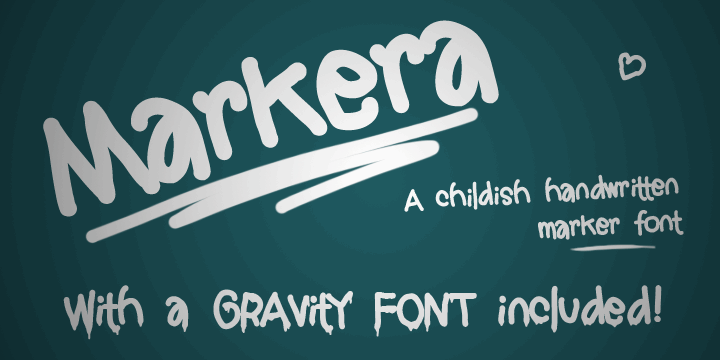
Download and enjoy this free markera font. Cool typeface to showcase your designs in a modern way. Go give some love to Font Space for creating this top-notch free font. You can create a professional designs with this cool font.